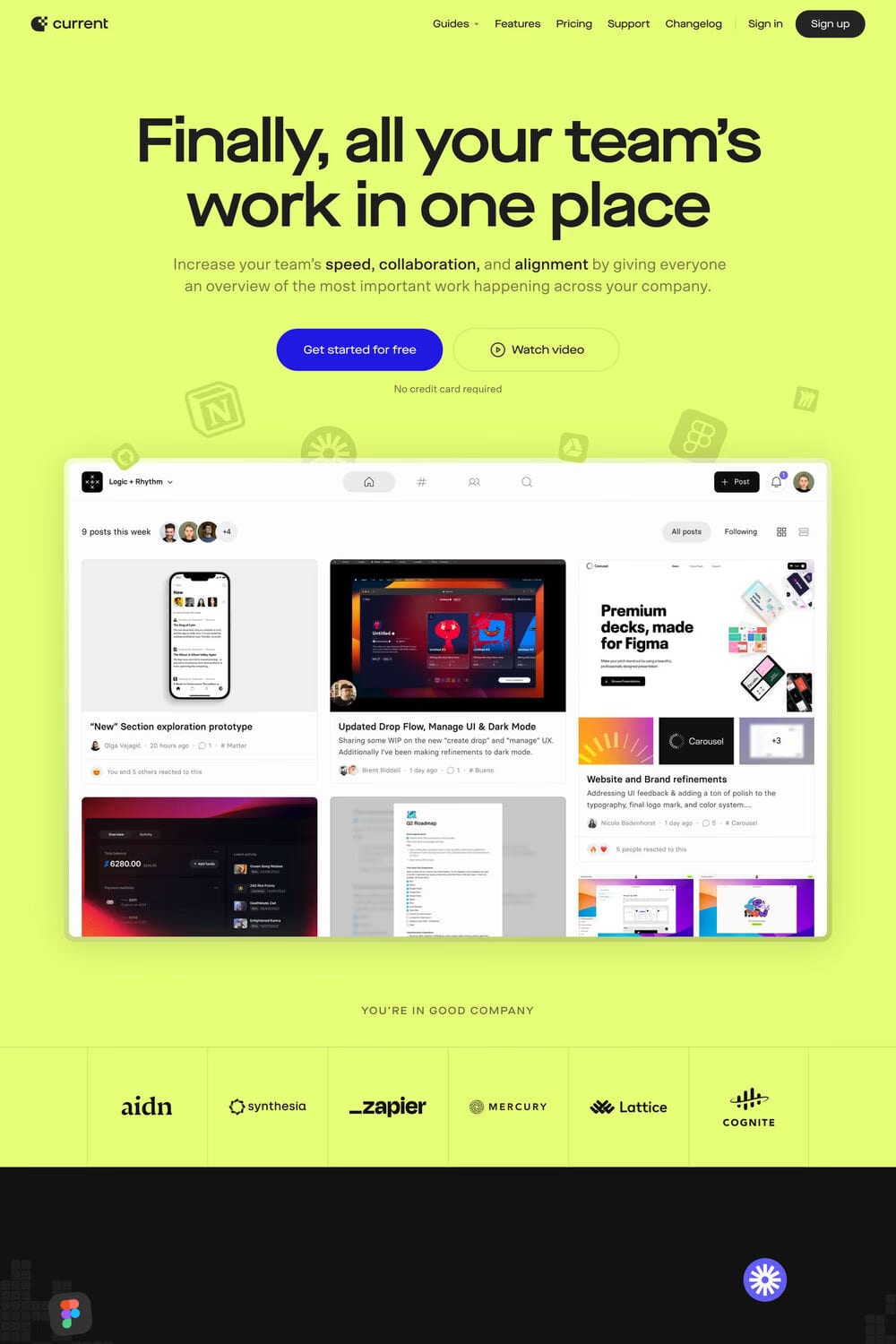
Scto Grotesk is a sans-serif typeface from Schick Toikka.
Striving for the ultimate grotesque, the type designers brought together all the qualities that they like best, always opting for the least quirky, most rational option: Strokes are invariably cut off horizontally or vertically – across all weights. R has a straight leg, dots are square, ascenders and caps share the same height. Scto Grotesk avoids simplistic solutions in favor of animated, reader-friendly forms, see details like the lowered dots on i or the asymmetric bars in f/t.